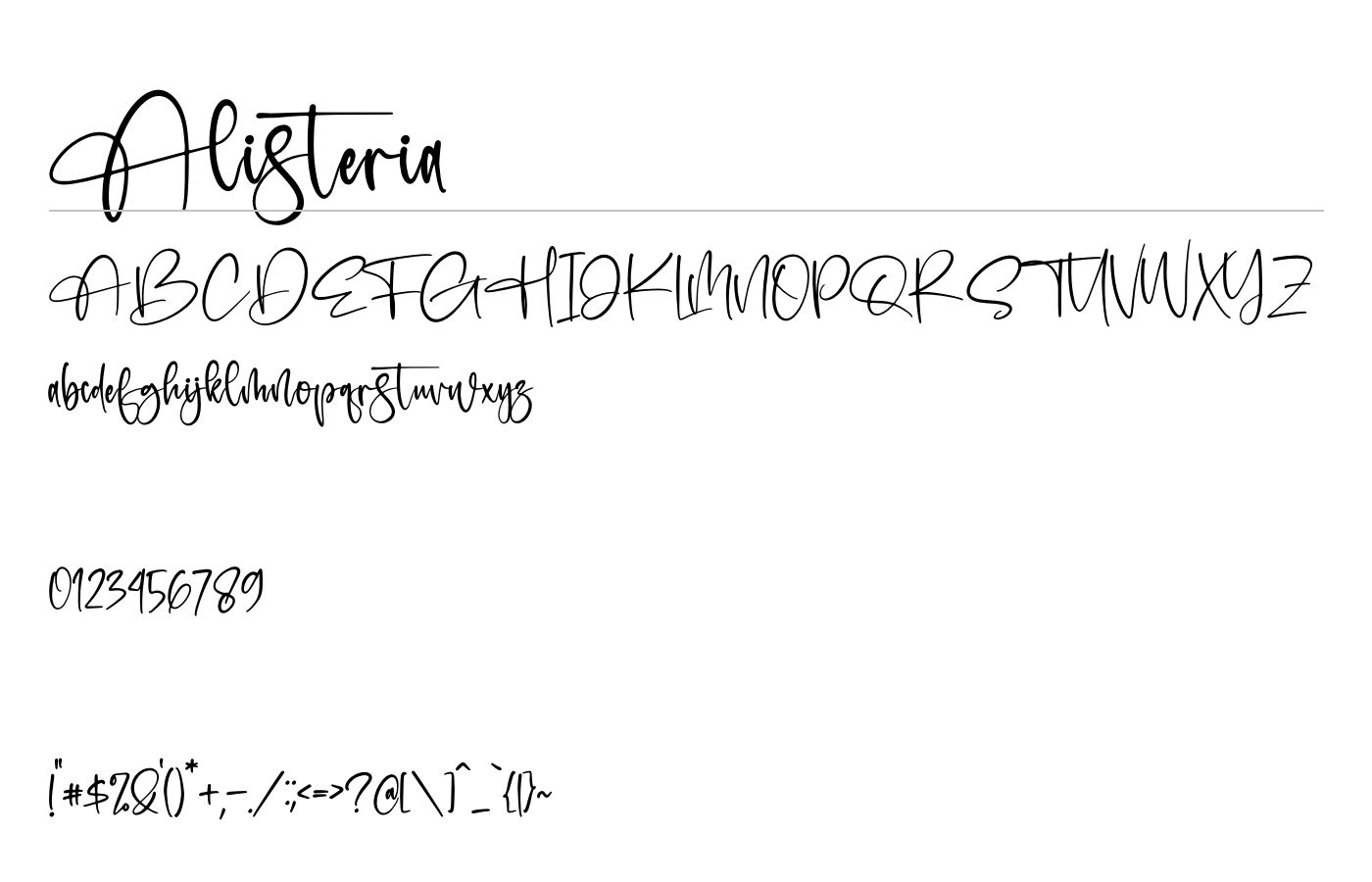
Alisteria is a playful and elegant handwritten script font featuring tall, slender letterforms with whimsical loops and smooth, flowing strokes. Its casual yet refined style makes it ideal for creative branding, invitations, and personal projects that seek a unique and charming touch. This font works well in headlines and decorative text, adding personality without sacrificing readability.
Alisteria Font
About Alisteria Font